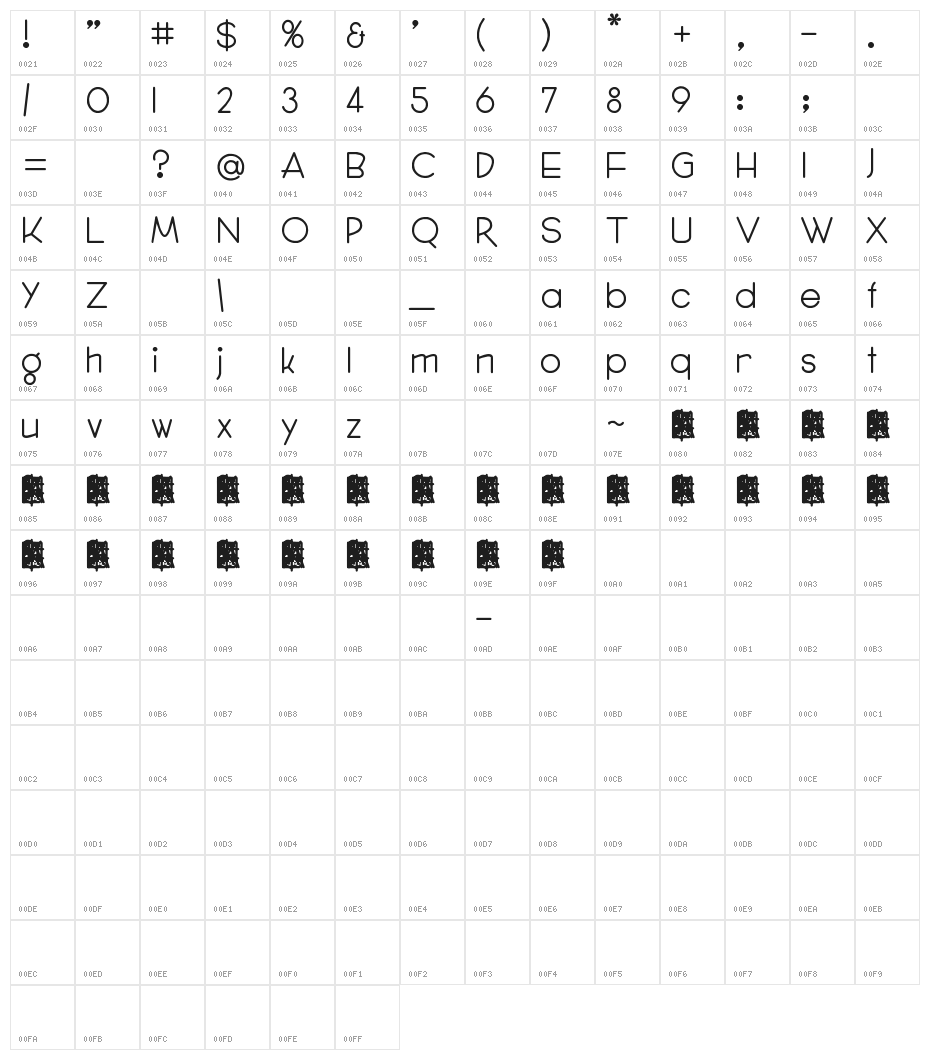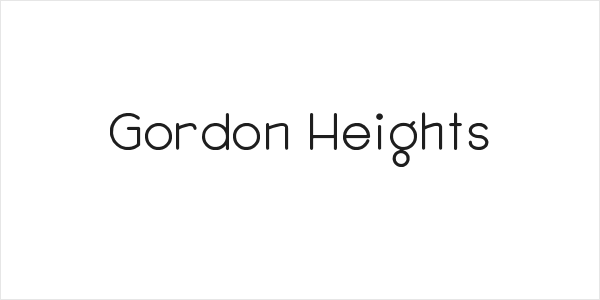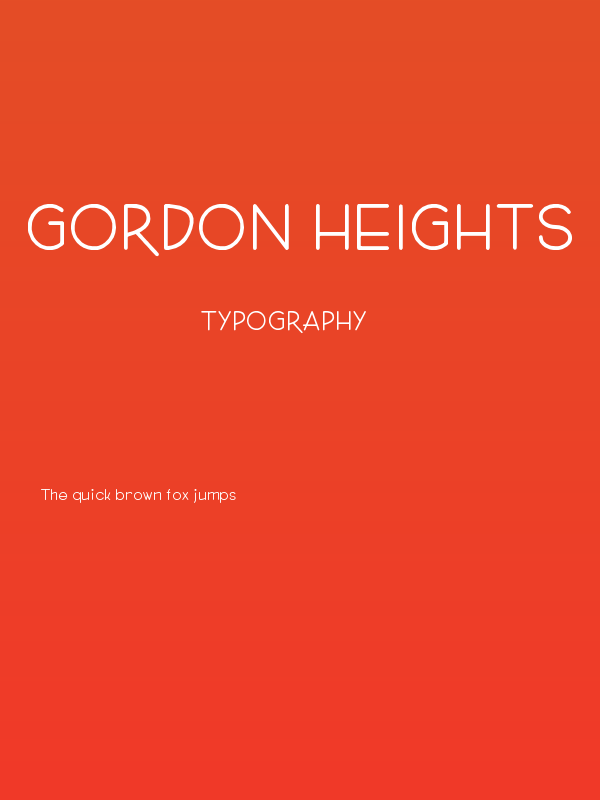
Gordon Heights Font
Gordon Heights Description
This font features a clean, geometric design with rounded edges, giving it a friendly and approachable appearance. The characters are evenly spaced, contributing to its readability. The uppercase letters are slightly taller than the lowercase, maintaining a consistent line weight throughout. The numerals and special characters are designed to match the overall aesthetic, ensuring a cohesive look. Its simplicity and clarity make it suitable for a variety of applications, from digital interfaces to print media. The font's modern style is enhanced by its uniform stroke width, which provides a balanced and harmonious visual experience.
| Proposed Projects | Ideal for digital interfaces, branding, signage, and educational materials. |